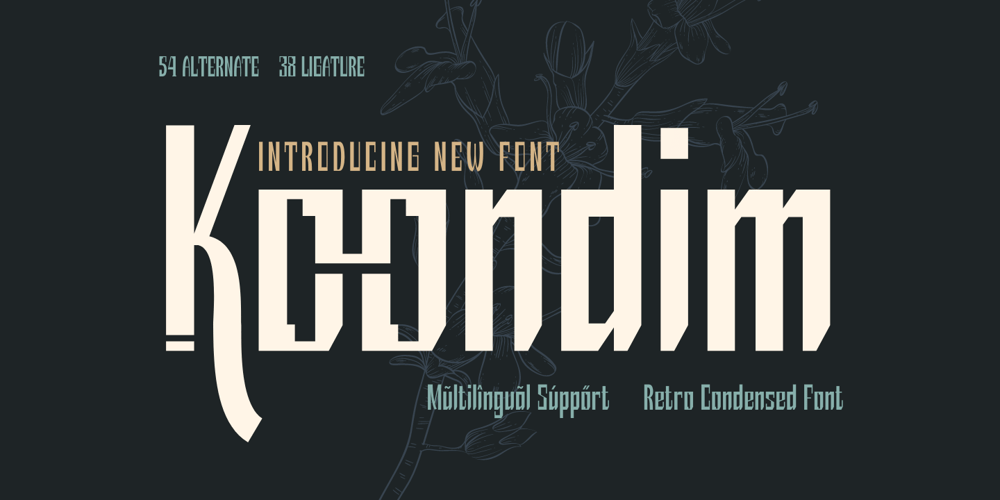
Koondim
Koondim font
Koondim Font Family was designed by Rozikan and published by Twinletter. Koondim contains 1 styles and family package options. Introducing Koondim, a retro condensed font with a classic retro-inspired design. This font is perfect for various special projects, such as branding, packaging, logos, and more. With its OpenType feature, Koondim comes with 54 alternate styles and 38 ligatures that add a stylish and unique touch to your design.Koondim font is a versatile choice for any designer looking for a retro, condensed style with a touch of modern sophistication. The beautiful alternates and ligatures make it easy to create a customized look and elevate your designs. Plus, its multilingual support ensures that your message can be communicated clearly to a global audience.What’s Included :- File font- All glyphs Iso Latin 1- Alternate, Ligature- Simple installations- We highly recommend using a program that supports OpenType features and Glyphs panels like many Adobe apps and Corel Draw so that you can see and access all Glyph variations.- PUA Encoded Characters – Fully accessible without additional design software.- Fonts include Multilingual support